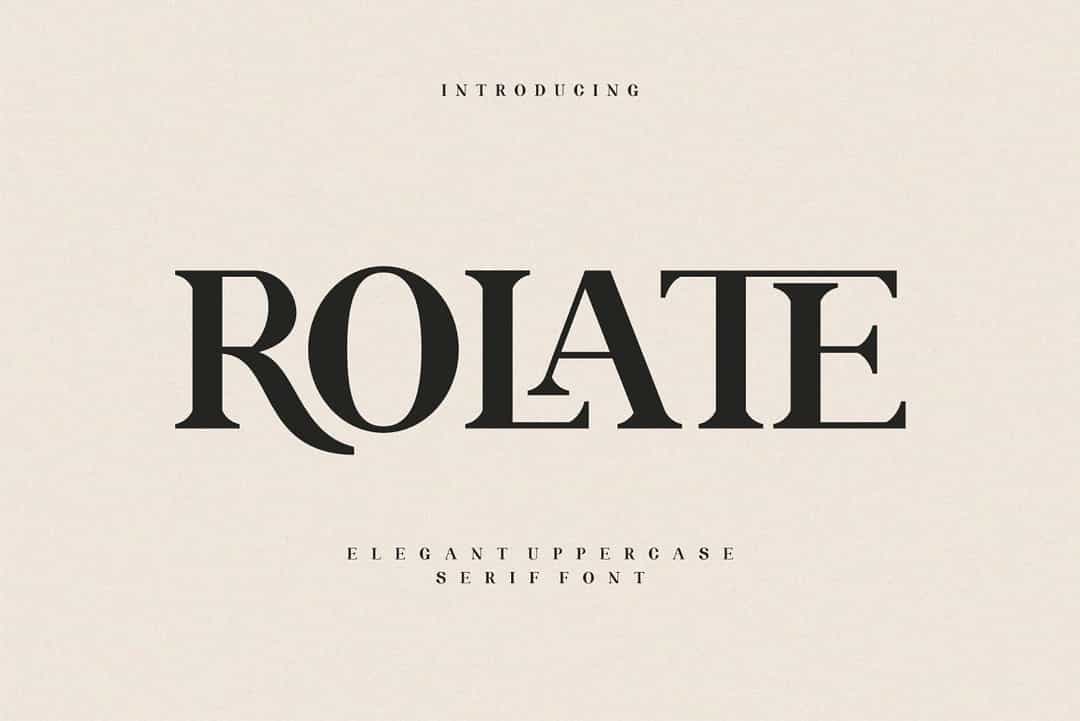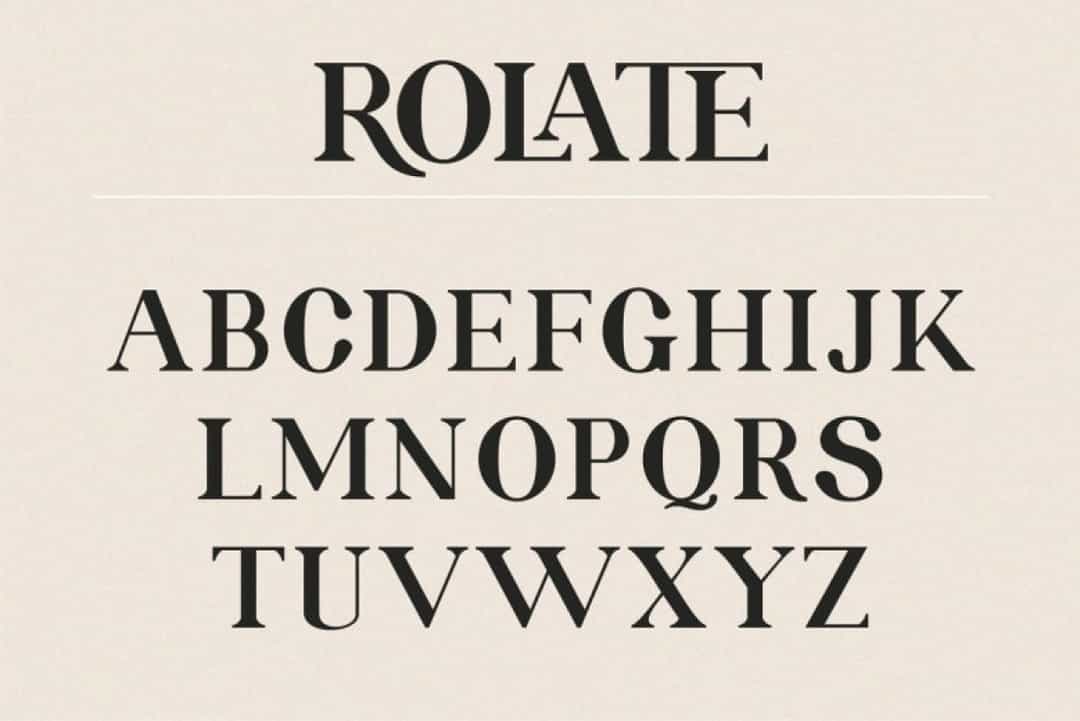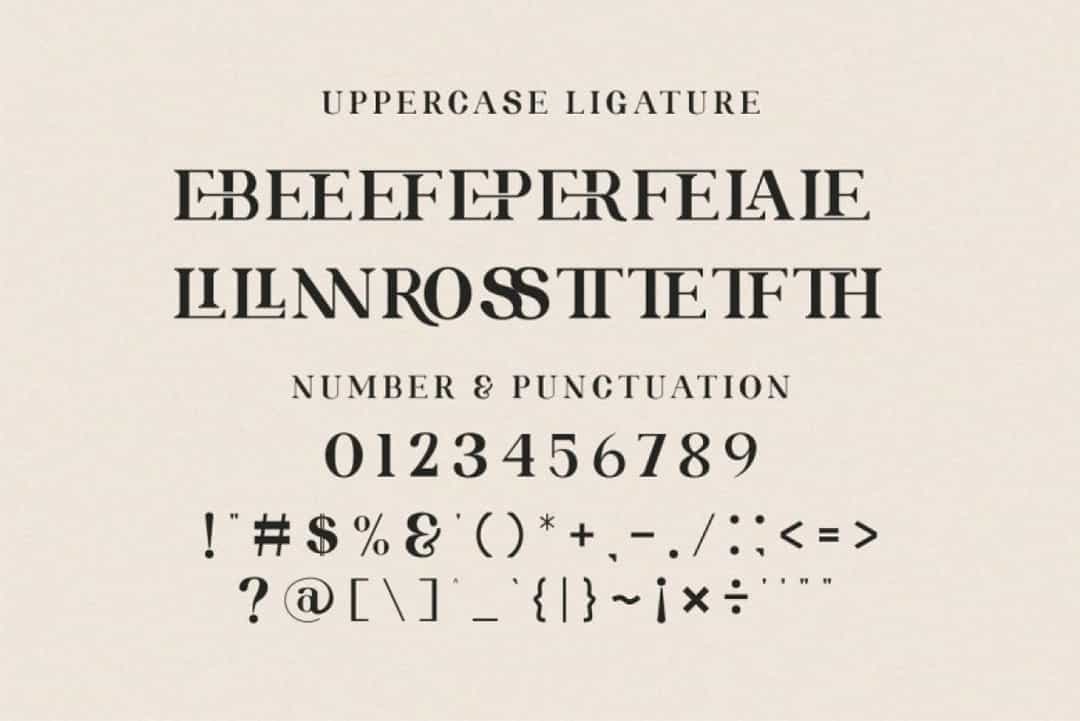
ROLATE is an elegant and sophisticated serif typeface. The font’s modern yet nostalgic style makes it suitable for use in logos, magazines, social media posts and other content creation tasks. Already paired and ready for use in your next project! Use ROLATE when looking to create sophisticated yet classy designs with contemporary touches!